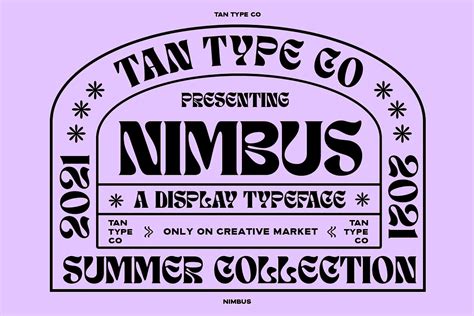
TAN NIMBUS Font by TanType
Tan Nimbus Font. Perfect if you need a. It’s retro, bold, and playful.
Tan nimbus font typeface is a psychedelic inspired typeface. It’s retro, bold, and playful. Perfect if you need a.
It’s retro, bold, and playful. Tan nimbus font typeface is a psychedelic inspired typeface. Perfect if you need a. It’s retro, bold, and playful.